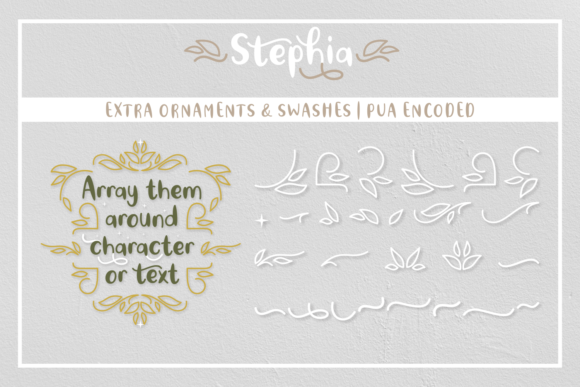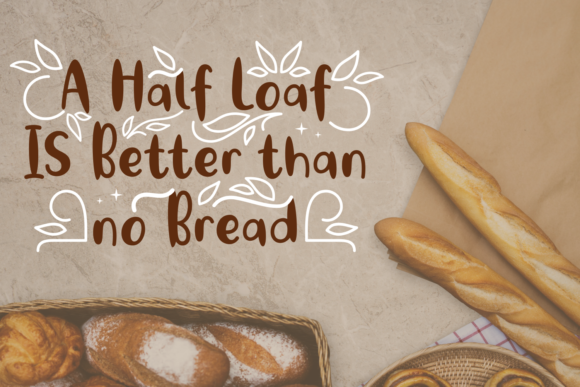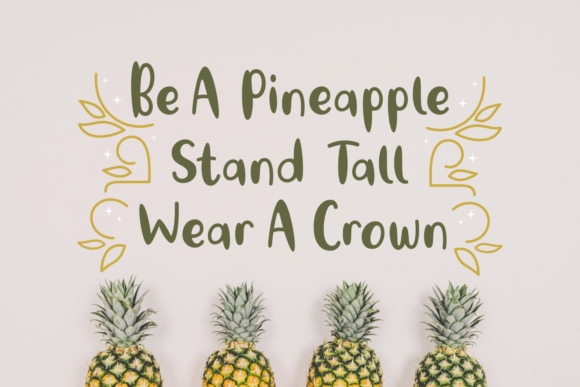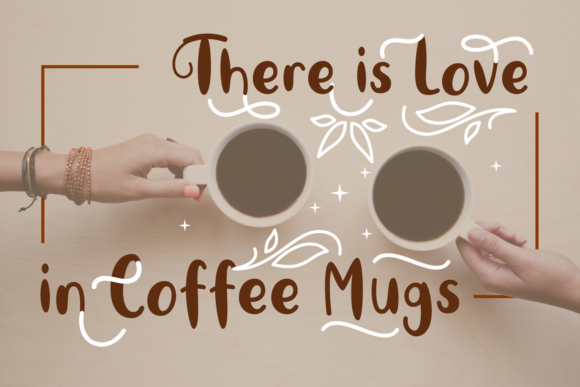
Stephia Font
About Stephia Font
Stephia is a wonderful handwritten font with a cutesy style.
It will help you add a professional touch to your designs in a wink.